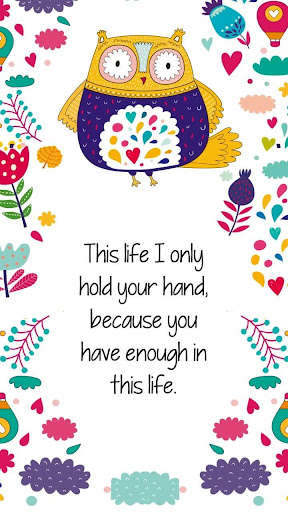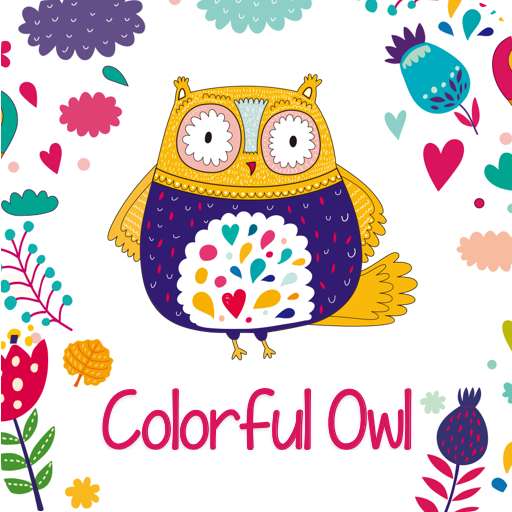
Colorful Owl allows all users to change the system font of your phone or tablet .
Change your entire phone font into Colorful Owl.
Come and experience the customized font for you.
The feature of Colorful Owl is compatible ability.
Lovely, sweet and colorful as you wish.